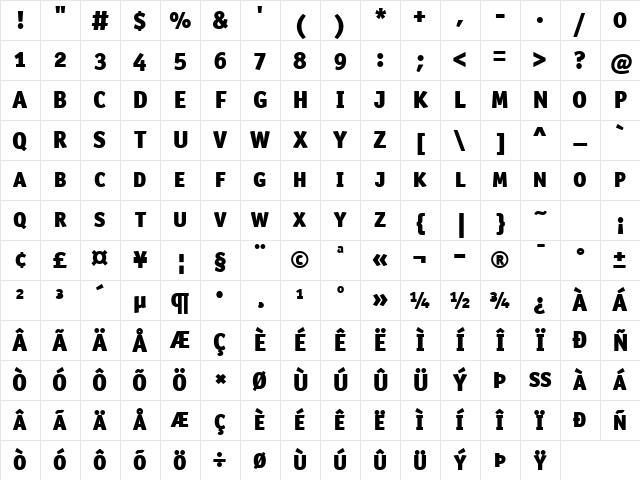
Complete OfficinaSanBlkSCITCTT Black glyph index. Displaying only characters natively supported by OfficinaSanBlkSCITCTT Black font.
OfficinaSanBlkSCITCTT is a composed and adaptable typeface that performs quietly and consistently across a wide range of design contexts.